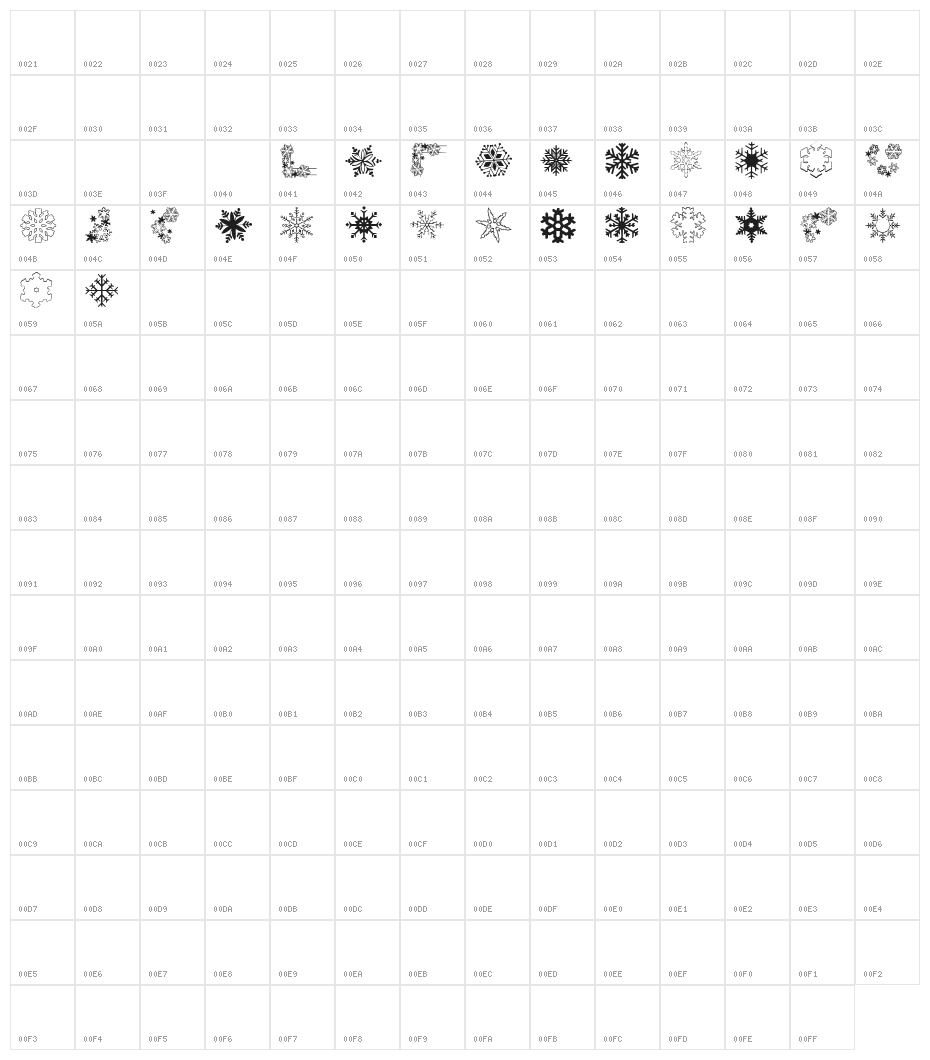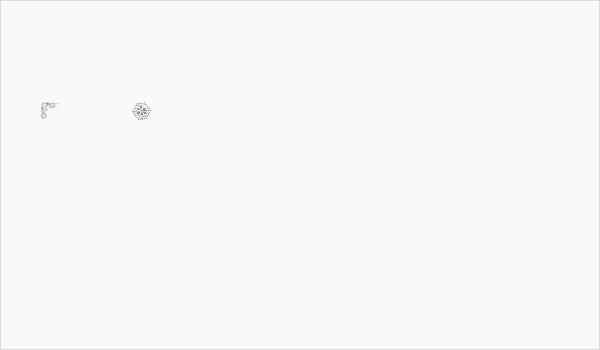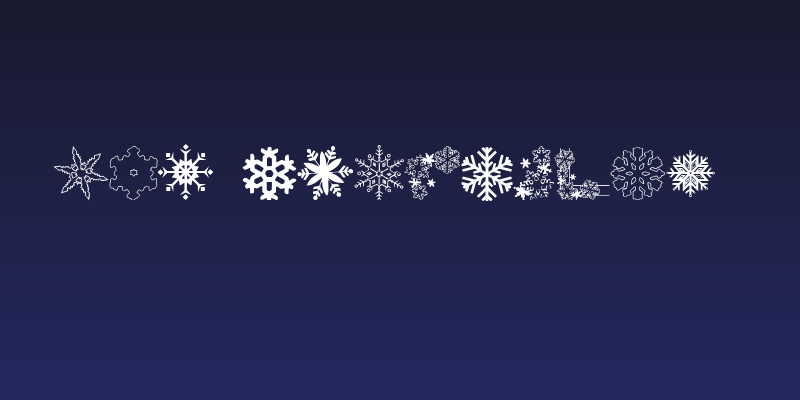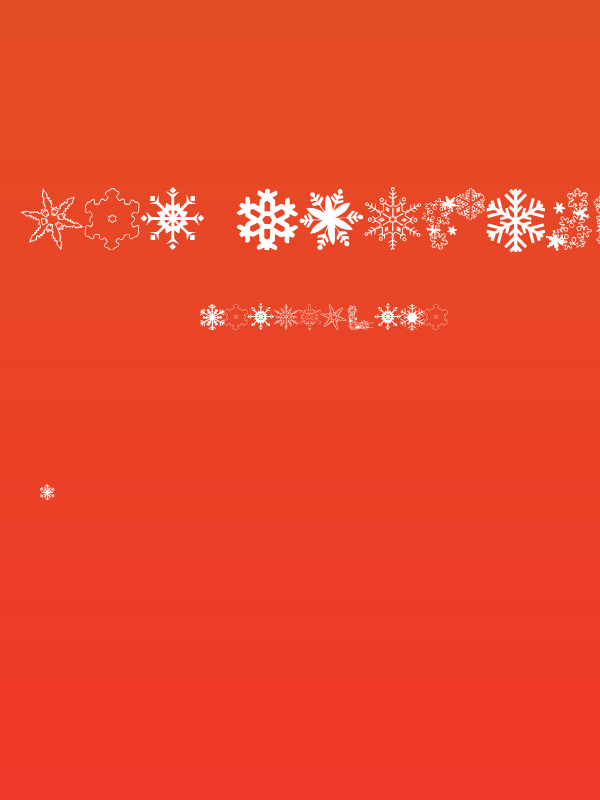
ryp_snowflake1 Font
ryp_snowflake1 Description
This decorative font features a series of intricate snowflake designs, each representing a different character. The snowflakes vary in complexity, with some showcasing bold, symmetrical patterns and others displaying delicate, lacy details. The overall style is whimsical and festive, making it ideal for winter-themed projects. The characters are evenly spaced, allowing each snowflake to stand out distinctly. The contrast in stroke thickness varies, with some snowflakes having bold outlines while others are more subtle. This font captures the essence of winter and adds a playful touch to any design.
| Use Case | Logos, Headlines, Decorative elements |
| Proposed Projects | Ideal for holiday cards, winter event invitations, festive posters, and seasonal branding. |